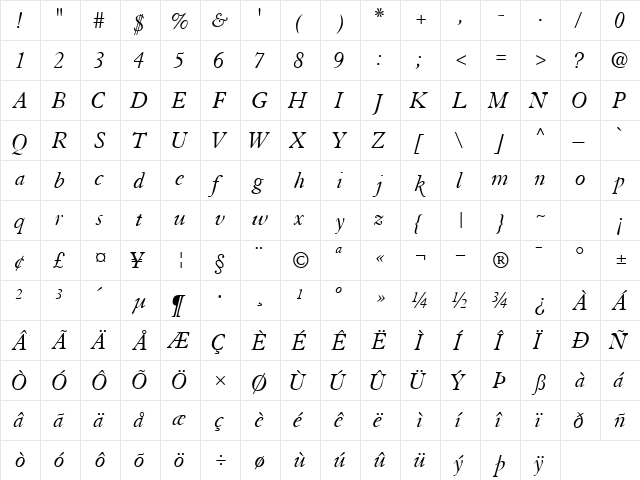
TiascoSSK Italic Font Preview
TiascoSSK Italic
TiascoSSK Italic Font Details
Design Context for TiascoSSK Typeface
TiascoSSK takes a measured approach to typography — its balanced proportions and neutral character make it a reliable workhorse for both digital and print work. The slanted form adds forward momentum and visual energy.